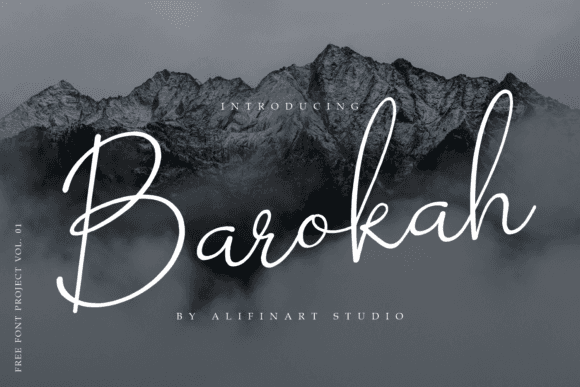
Barokah Font for Headlines, Posters and Branding Projects
Barokah is a display font crafted for high-visibility use in branding, poster layouts, and headline compositions. Its assertive weight and strong structure ensure instant recognition across media platforms and product types.
Classified as a FONT entity, Barokah enhances modern visual identity systems and supports high-conversion graphics, delivering performance across digital, print, packaging, and merchandising channels.
- High-impact posters and event flyers
- Custom logos and product branding
- Packaging labels and merchandise graphics
- Web banners and social media visuals
- Printable signage and business templates
- Ideal for bold, modern branding statements
- Excellent readability in both print and screen formats
- Versatile for both personal and commercial outputs
- Designed for impact in large-format typography
| Feature | Barokah Font | Generic Display Font | Generic Sans Serif Font |
| Design Purpose | Bold headlines and brand visuals | General large-type use | Neutral, modern text layouts |
| Best Use Case | Posters, logos, packaging | Web headers, flyers | Webpages, user interfaces |
| Font Style | Display, structured, bold | Stylized sans or slab | Simple sans serif |
| Production Flexibility | Excellent for print and screen | Good for banners and signs | Best for digital content |
| Creative Tone | Confident, bold, impactful | Casual or stylized | Minimal and professional |